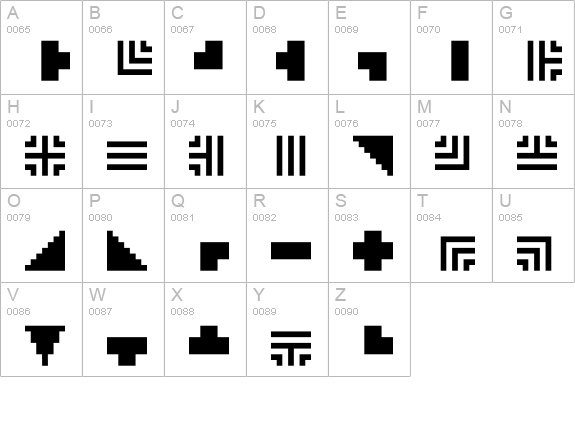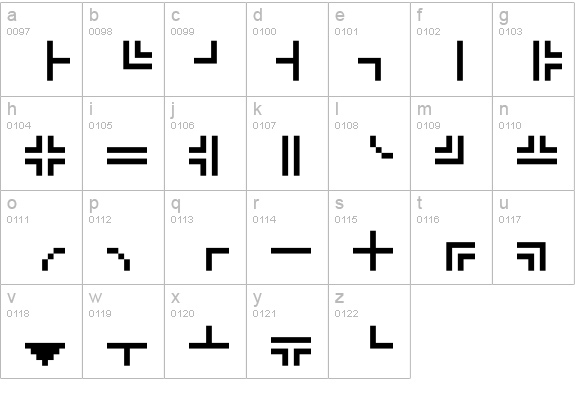
MINI 7 Extras Font Details
MINI 7 Extras font is a charming and whimsical typeface that adds a touch of playfulness to any design. With its fun and quirky characters, this font is perfect for creating eye-catching headlines, posters, and social media graphics. The MINI 7 Extras font includes a variety of unique symbols and icons that can enhance your creative projects. And the best part is, it's completely free! You can download the MINI 7 Extras font for free at FontsMarket.com. So why wait? Add a fun and creative flair to your designs with this delightful font today!